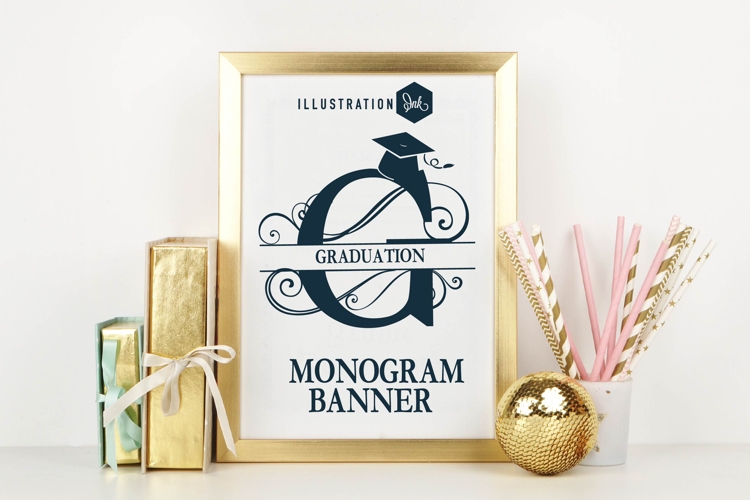
Graduation Monogram Banner Font Family
This hand-crafted font is a monogram font. To use type the initial of the monogram in uppercase. Type the name you want in lowercase and use in editing program to bring the two items together for a graduation monogram banner.